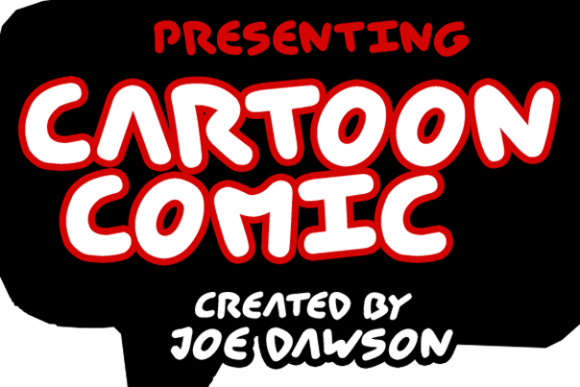
Introduction to Cartoon Comic Font
Cartoon Comic is a fun, hand-drawn font in a friendly marker style.
👤 Author Joe Dawson
Perfect for playful design ideas, comics and cartoons .
Why Choose Cartoon Comic Font?